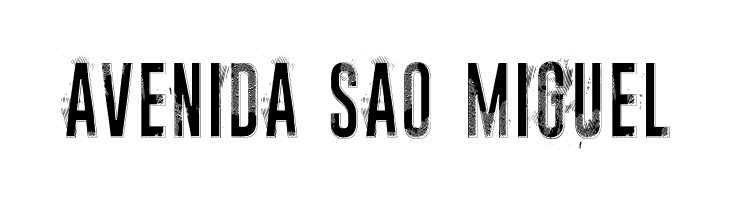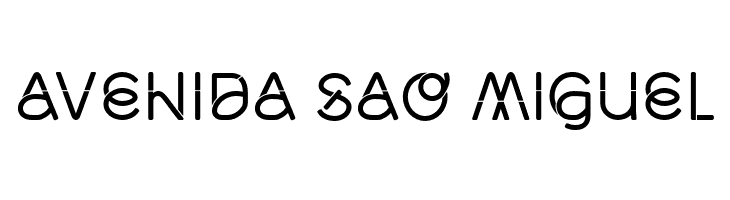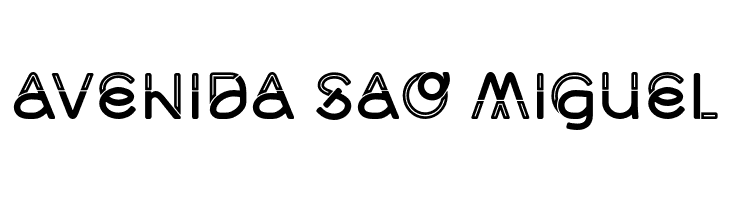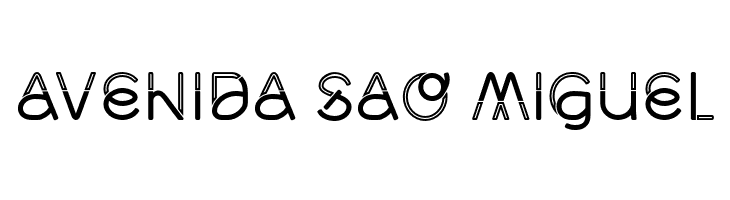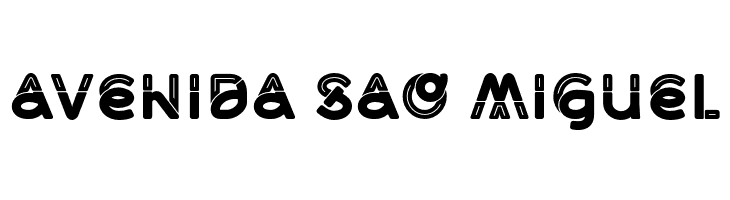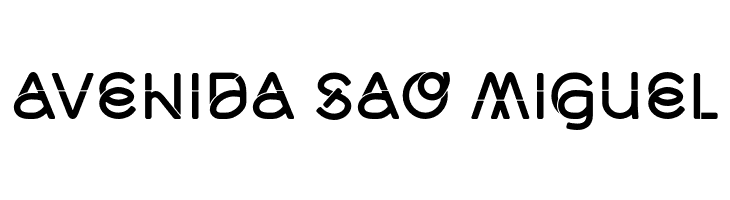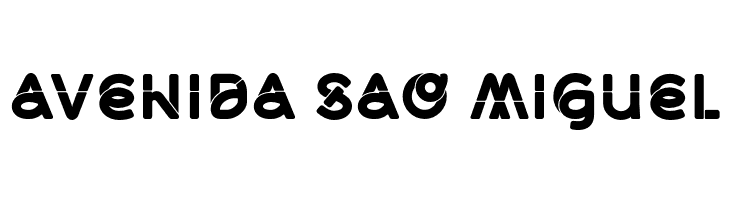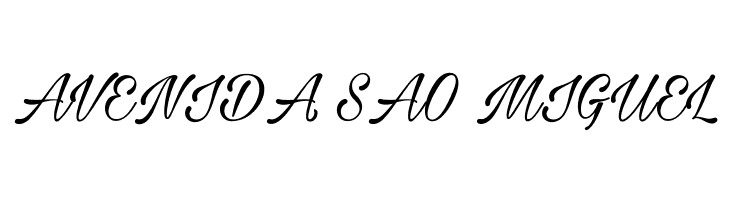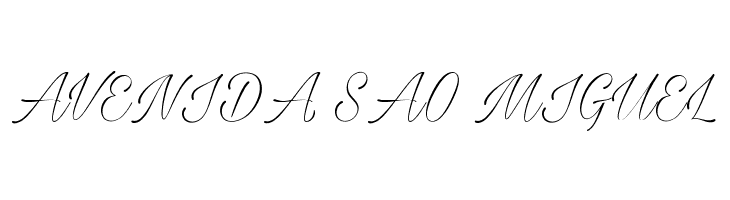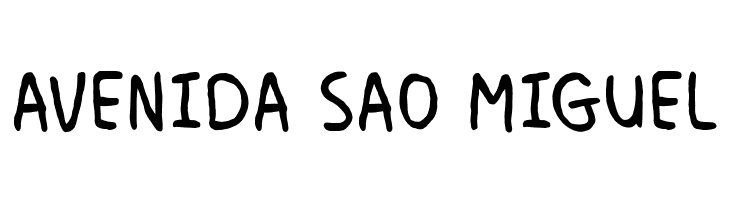
( Fonts by Ding Bang )
A decorative set of illustrated cartoon character glyphs.
( Intellecta Design - new.myfonts.com/search/intellecta/fonts/?sort=sales?refby=paulow )
Ornamental floral and flourish dingbats with a vintage feel.
( Intellecta Design - new.myfonts.com/search/intellecta/fonts/?sort=sales?refby=paulow )
Ornamental fleurons and decorative motifs with a vintage, classical style.
( Jeff Bensch - jbensch.deviantart.com )
A bold, hand-drawn font with a playful and dynamic style.
A playful, hand-drawn font with a bold, energetic style.
( Fonts by Morice Kastoun )
A bold, modern inline font with decorative elements.
( Fonts by Morice Kastoun )
A bold, inline decorative font with modern flair and striking visual impact.
( Fonts by Morice Kastoun )
A bold, geometric font with rounded edges and a modern style.
( Fonts by Morice Kastoun )
A bold, geometric inline font with a modern, playful style.
( Fonts by Morice Kastoun )
A modern, geometric inline font with a futuristic style.
( Fonts by Morice Kastoun )
A modern, geometric font with rounded edges and consistent stroke width.
A playful, hand-drawn font with bold, irregular strokes and a dynamic slant.
A bold, distressed font with a textured, vintage appearance.
A flowing, cursive font with elegant, elongated letterforms and a handwritten appearance.
A playful, rounded font with bold, smooth curves and a friendly appearance.
A clean, rounded sans-serif font with a modern and friendly appearance.
An elegant script font with flowing, interconnected letters and ornate swashes.
A hand-drawn, sketch-style font with textured, artistic characters.
A bold, stencil-style font with a military and industrial feel.
An abstract, artistic font with bold, irregular shapes and a decorative style.
A playful, bold handwritten font with rounded edges and a casual style.